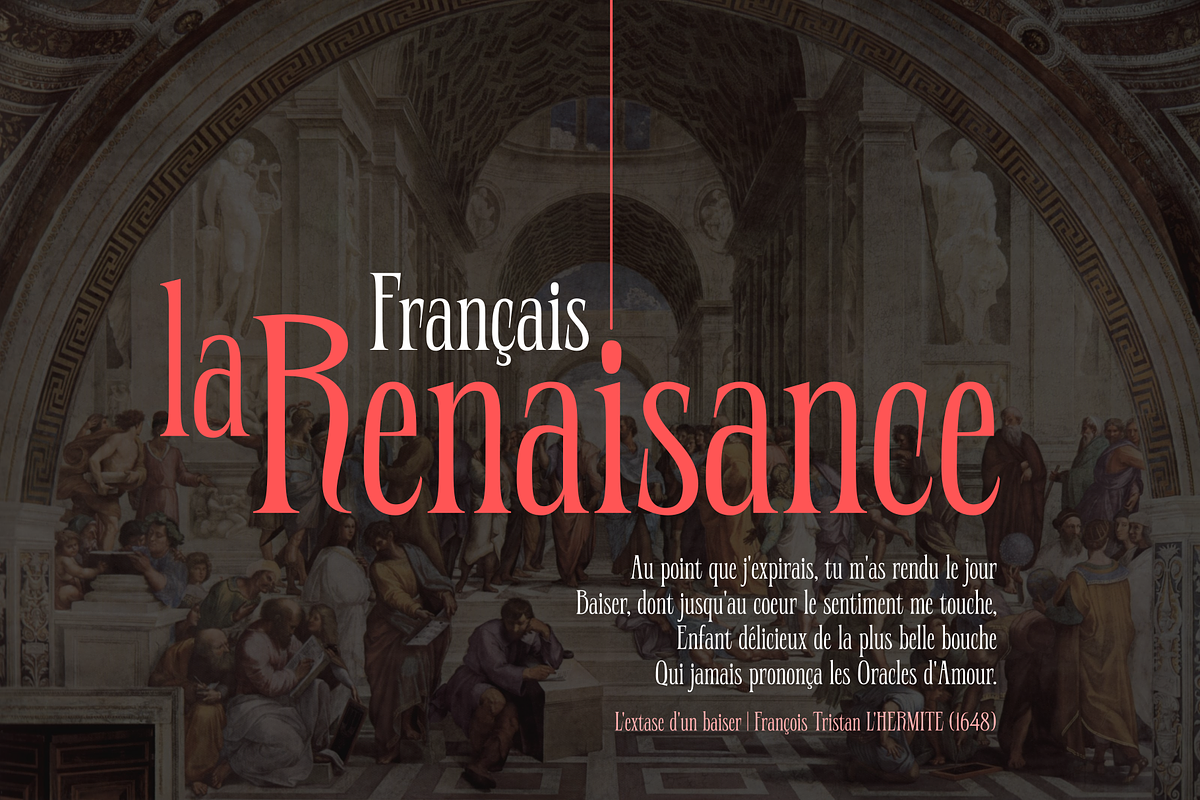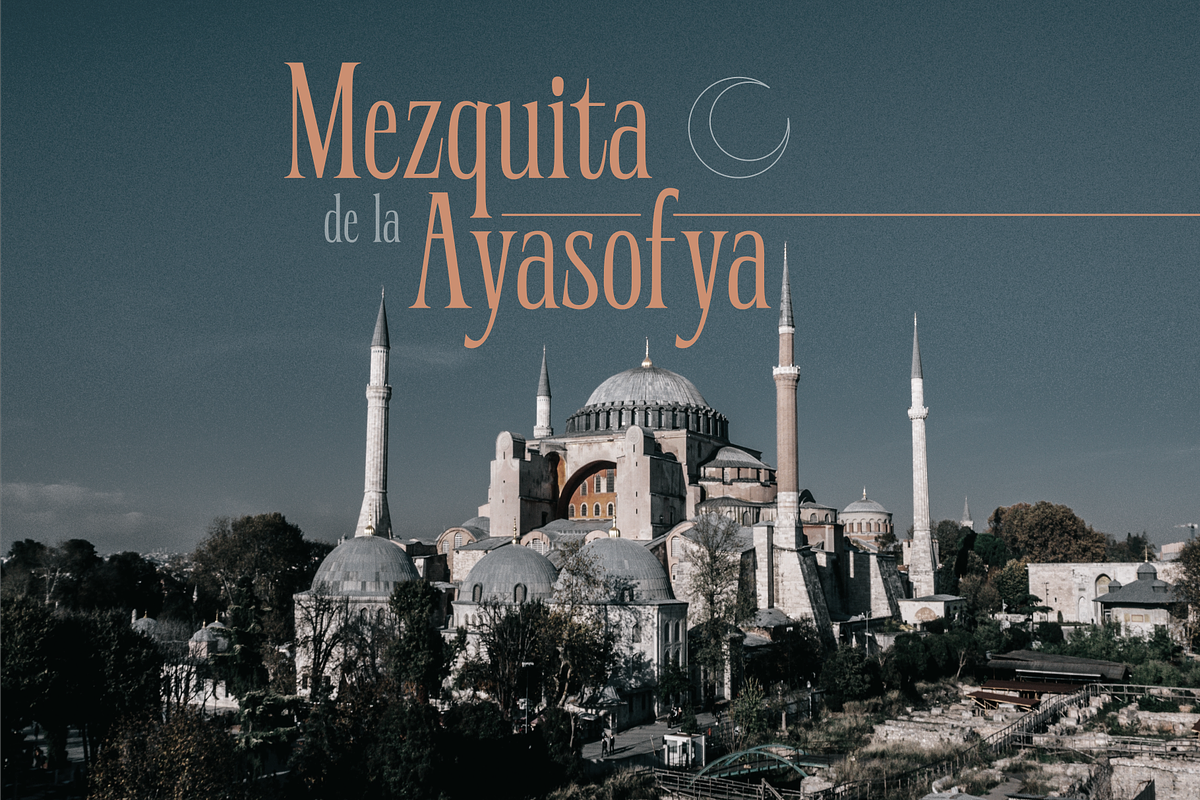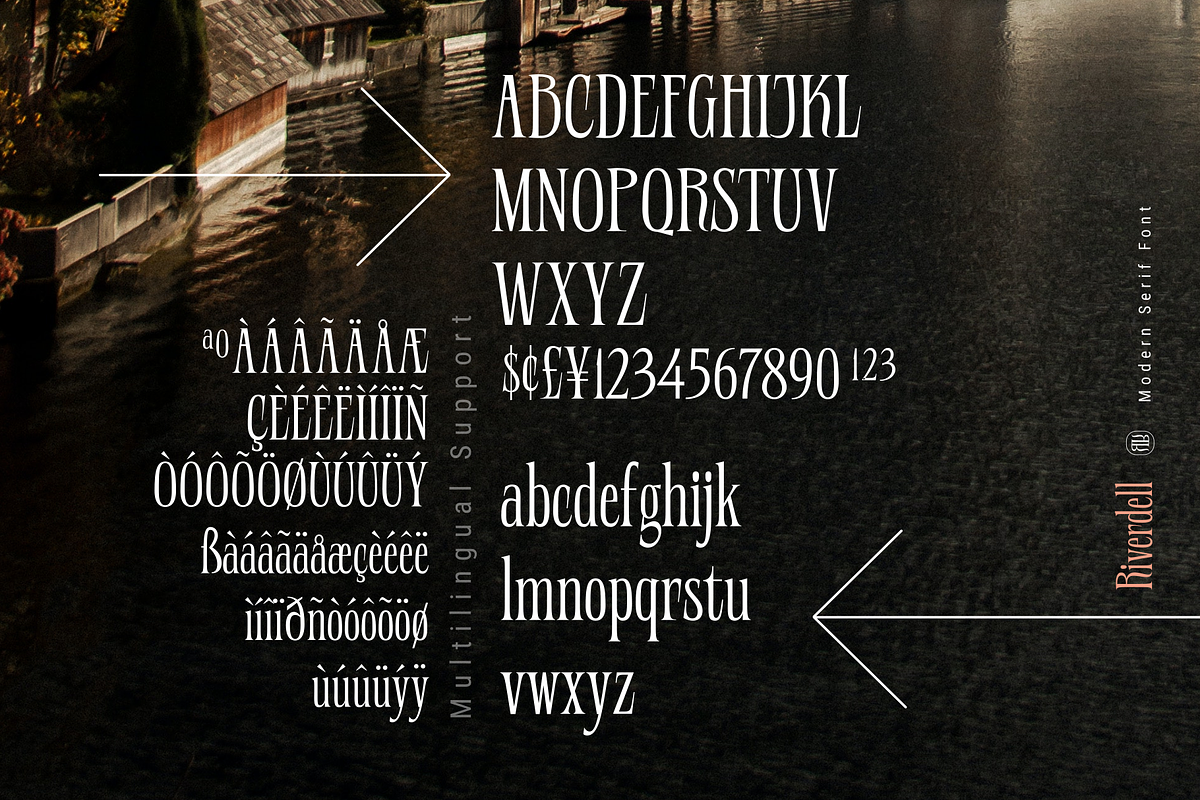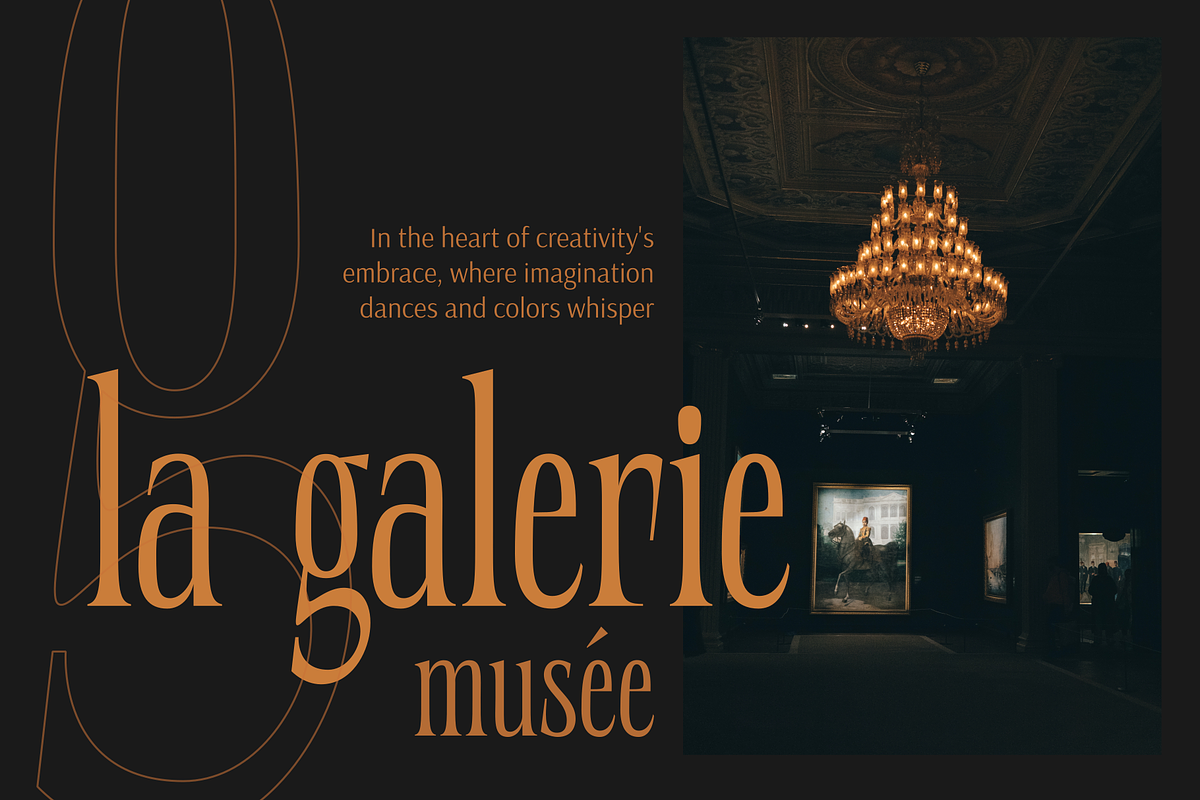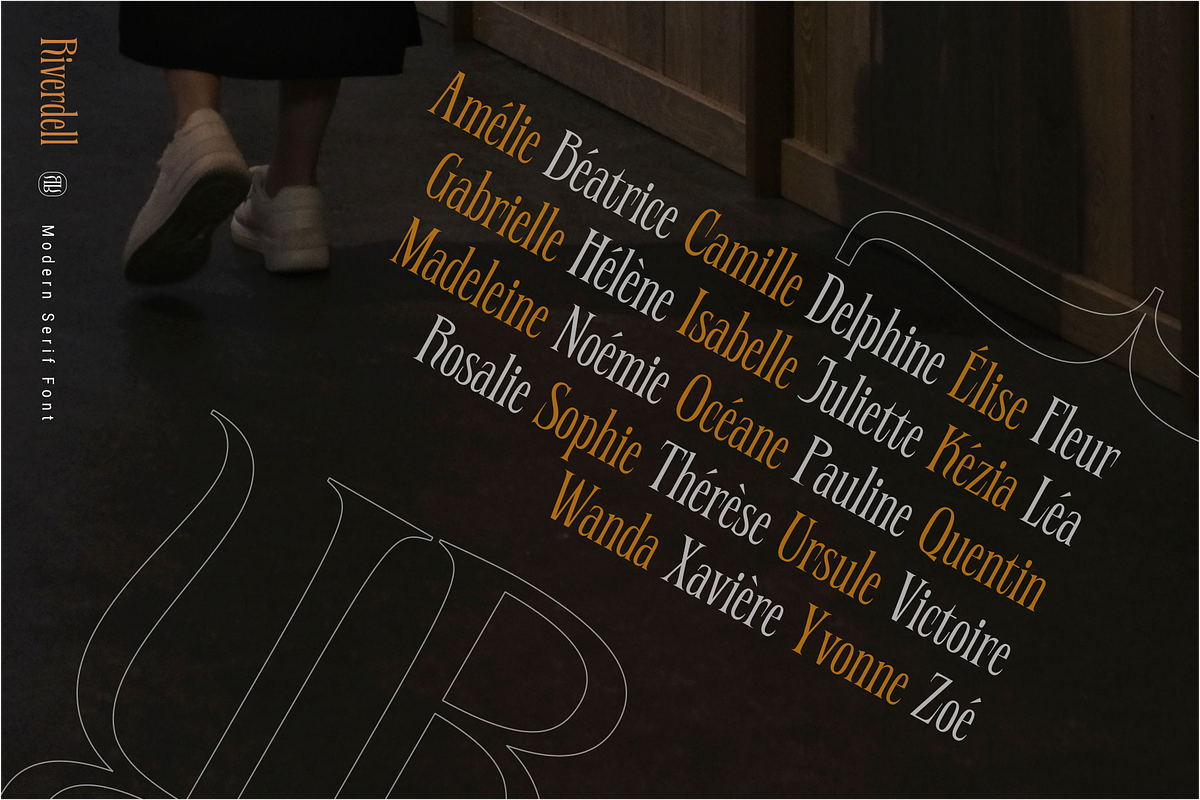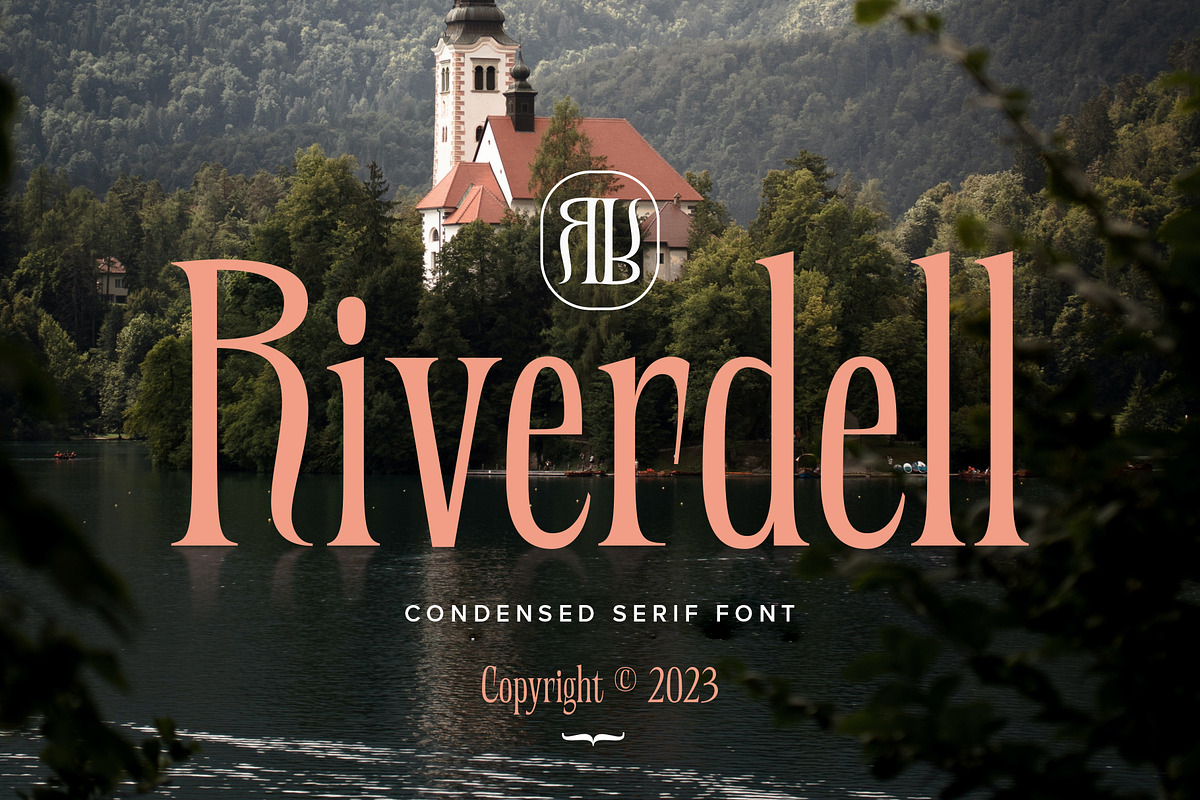
Riverdell – Condensed Serif
Riverdell – Condensed Serif Font is a refined and sleek typeface that exudes a modern yet classic charm. With its condensed letterforms and elegant serifs, this font offers a perfect balance of readability and style. Ideal for conveying sophistication in branding, editorial design, and any project that requires a touch of timeless elegance.